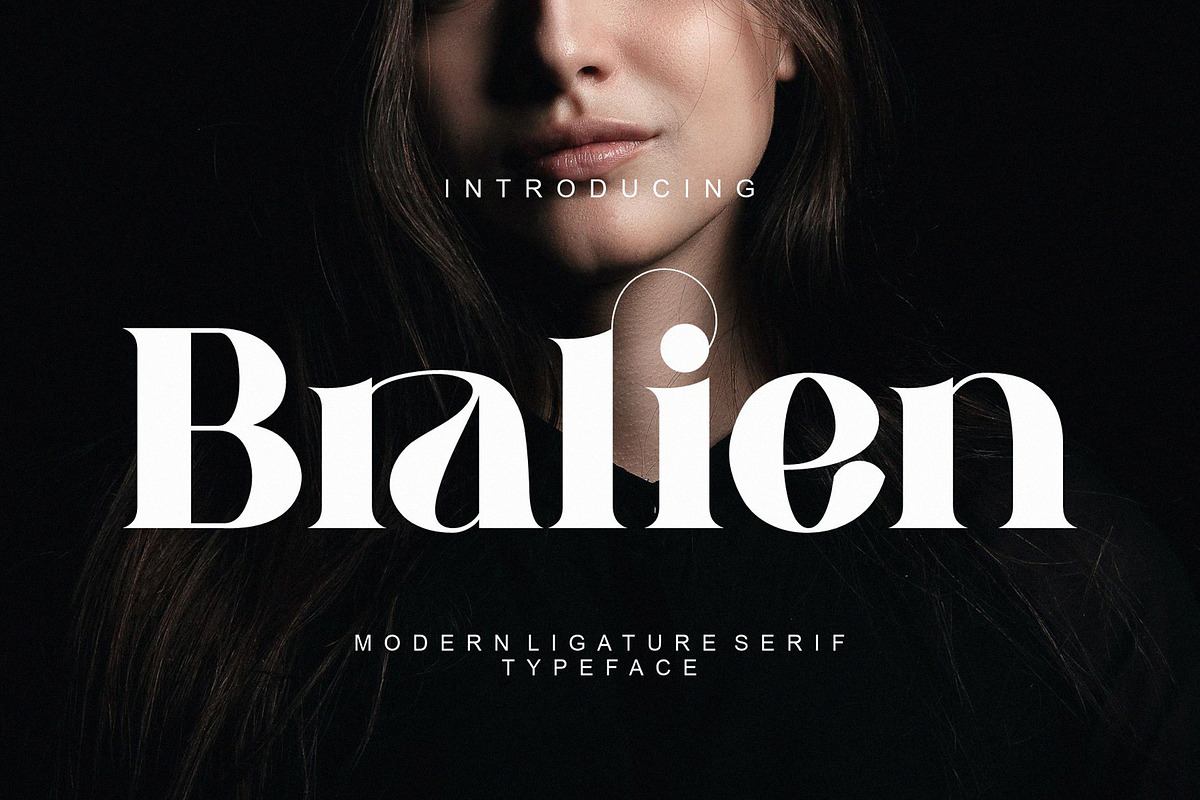
Bralien Modern Ligature Serif Free Download
Bralien Modern Ligature Serif Font Free Download is a sophisticated and elegant serif typeface that combines modern design with classic appeal. Featuring beautifully crafted ligatures and refined serifs, this font is perfect for high-end branding, editorial layouts, logos, packaging, and other creative projects that require a touch of luxury and style.
Its carefully designed ligatures create a unique flow, giving your designs an organic and harmonious look. Whether you're working on a modern brand identity or a chic magazine layout, Bralien Modern Ligature Serif Font Free Download adds a distinctive, polished touch to your typography.